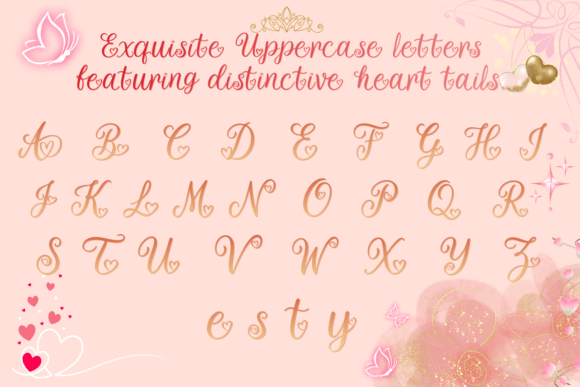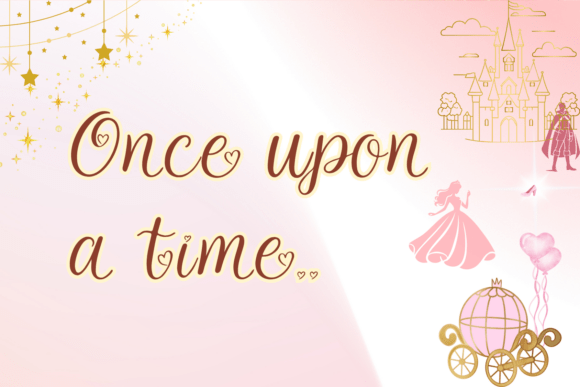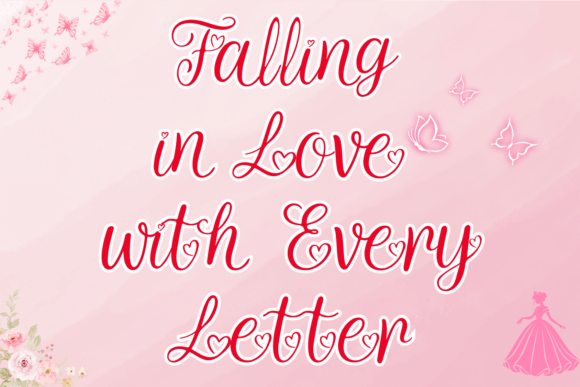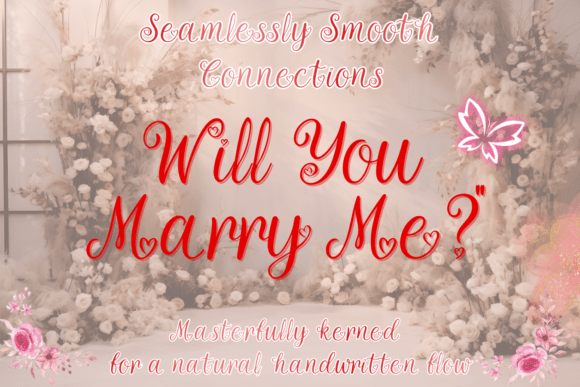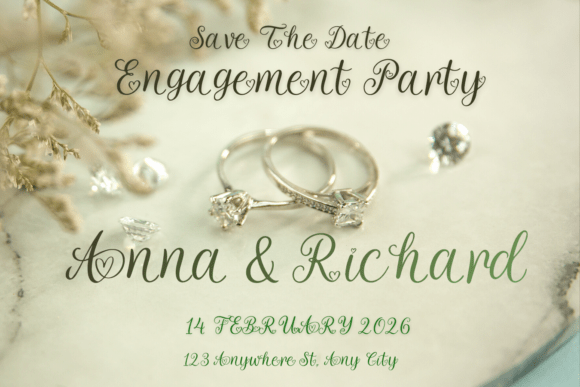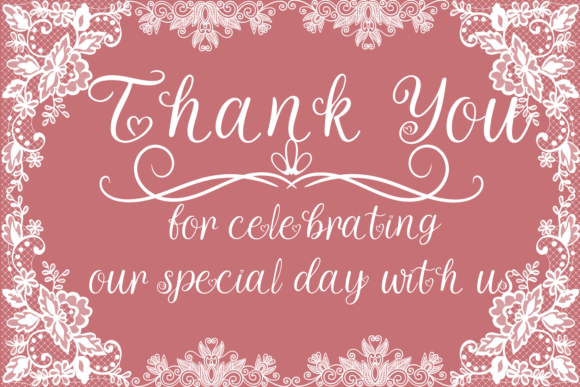
Introduction to Heart Melody Font Font
Fonts play a crucial role in design, and the Heart Melody Font font is a typeface that brings both character and versatility to any project. Whether you’re working on a branding project, a website, or a print design, the Heart Melody Font font offers a unique style that can elevate your work.
β¨ A Melody of Love, Written in Every Curve.
βHeart Melodyβ is an elegant calligraphy script designed for those who seek perfection Unlike ordinary fonts, Heart Melody is crafted with genuine passion and attention to detail.
Key Features of Heart Melody Font Font
Why Choose Heart Melody Font Font?
The Heart Melody Font font is more than just a typeface β it’s a design tool that helps you communicate your message with style and clarity. Its unique character set and versatile design make it suitable for a wide range of applications, from elegant invitations to bold headlines.
With its carefully crafted letterforms and balanced proportions, the Heart Melody Font font ensures readability and visual appeal across all mediums.
What makes Heart Melody Font font special?
The Heart Melody Font font stands out with its unique design, exceptional readability, and versatility across various design applications.